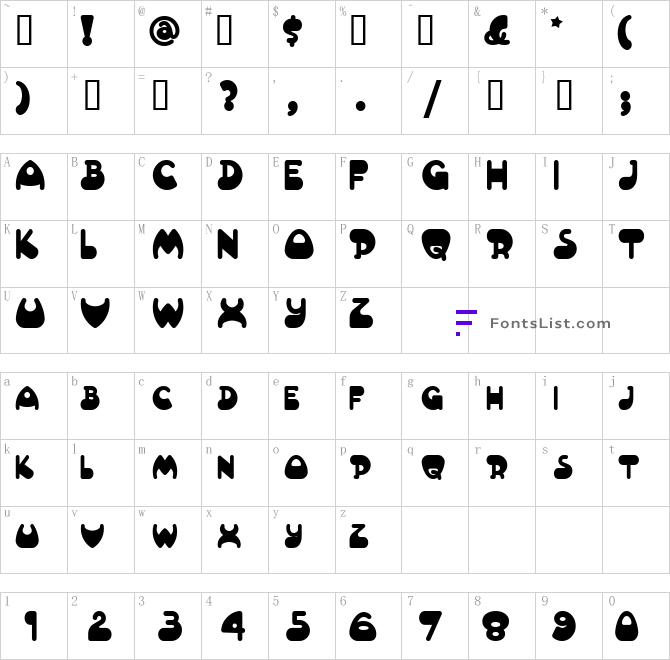
- Font Name:AltamonteNF
AltamonteNF.ttf is a very beautiful artistic font, AltamonteNF.ttf is widely used in the design and printing of various books and pictures,AltamonteNF.ttf has a strong visual impact,AltamonteNF.ttf is a commonly used font in newspapers, magazines and books, and is used in posters, e-commerce Poster design, store design, logo design, font design and other fields.AltamonteNF.